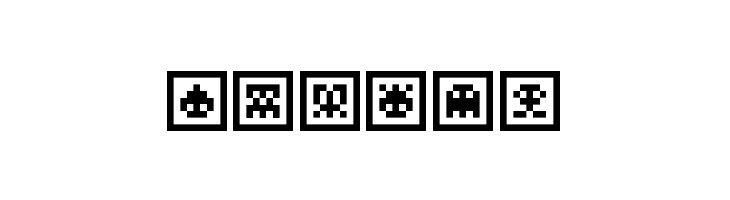
Jet Black Night Font
- Font: Jet Black Night
- Weight: Black
A playful, pixelated font with characters in square boxes, reminiscent of retro video game graphics.